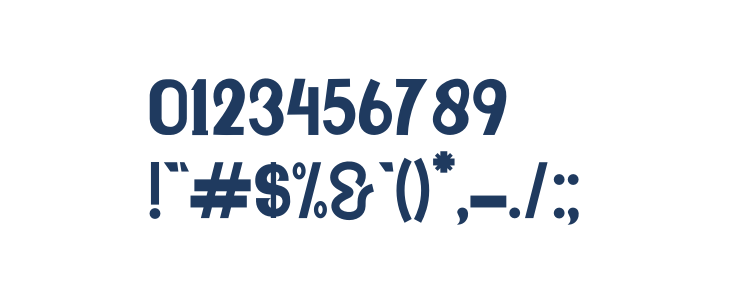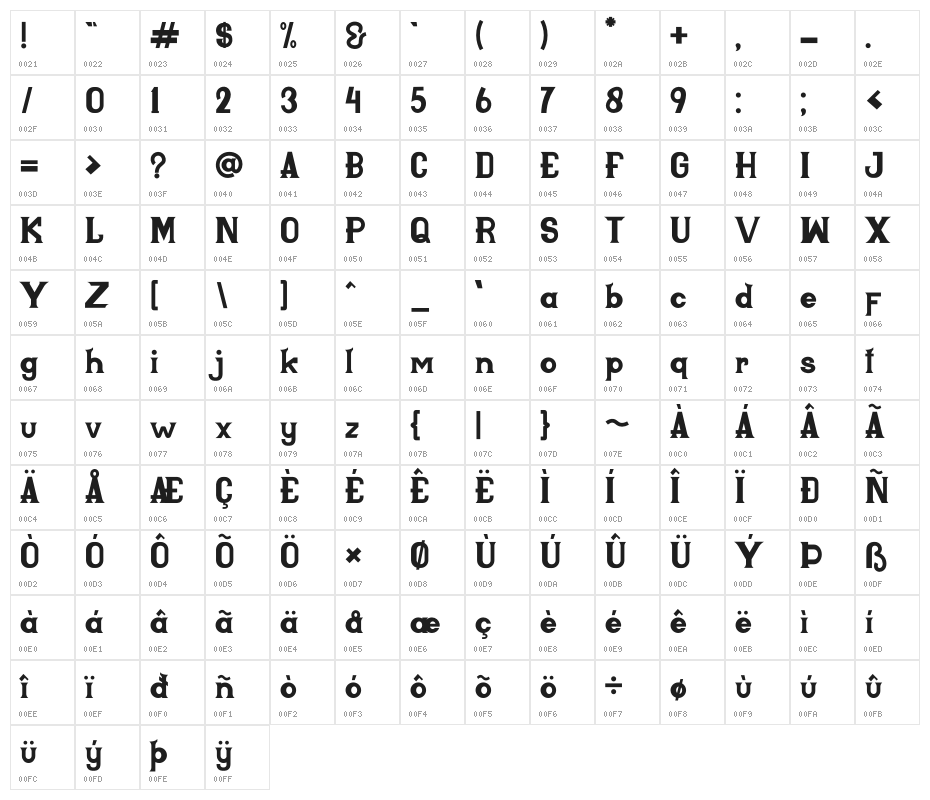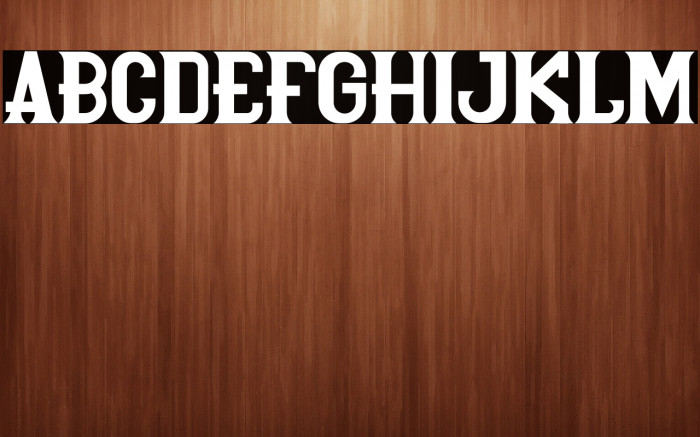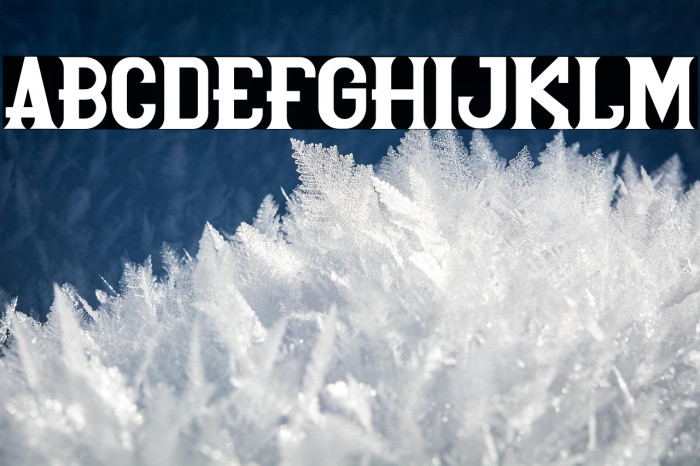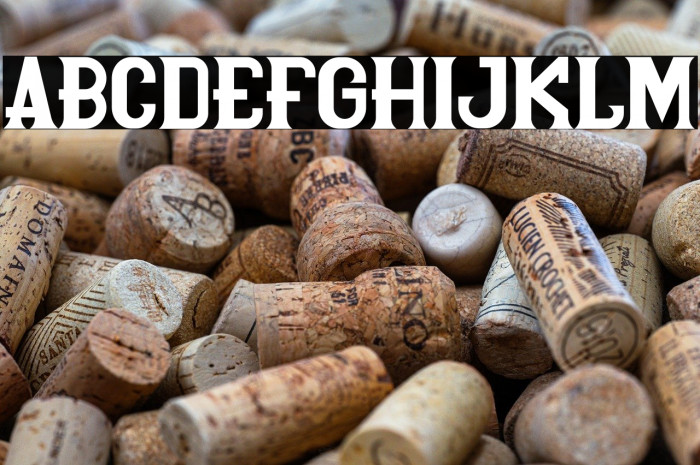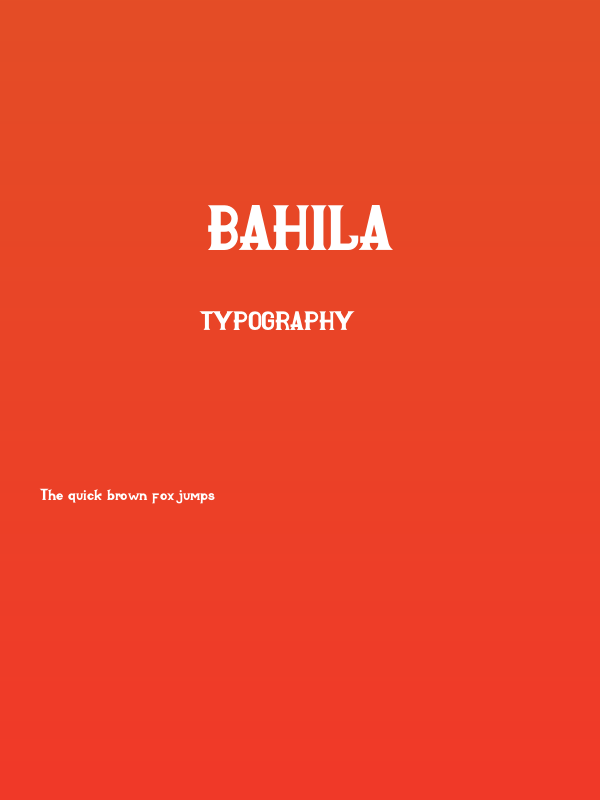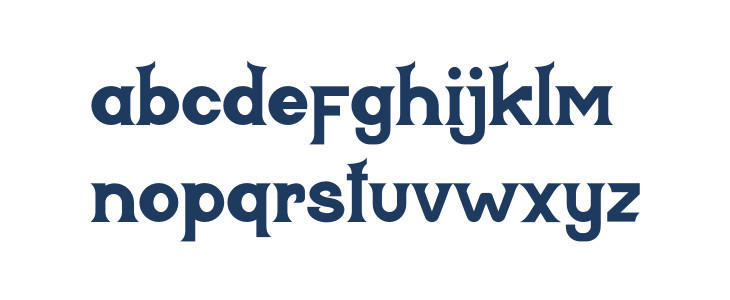
Bahila Font
Bahila Description
This font features a bold and dynamic style with a strong presence. The uppercase letters are characterized by thick, angular strokes and sharp serifs, giving them a commanding appearance. The lowercase letters maintain a similar boldness, with unique curves and angles that add a touch of playfulness. Numbers are equally bold, ensuring they stand out in any design. Special characters are crafted with the same attention to detail, making them suitable for various creative applications. The overall design is both modern and slightly vintage, offering versatility in its use.
| Overall Style | Modern, Vintage |
| Proposed Projects | Ideal for branding, poster design, headlines, and any project requiring a strong visual impact. |